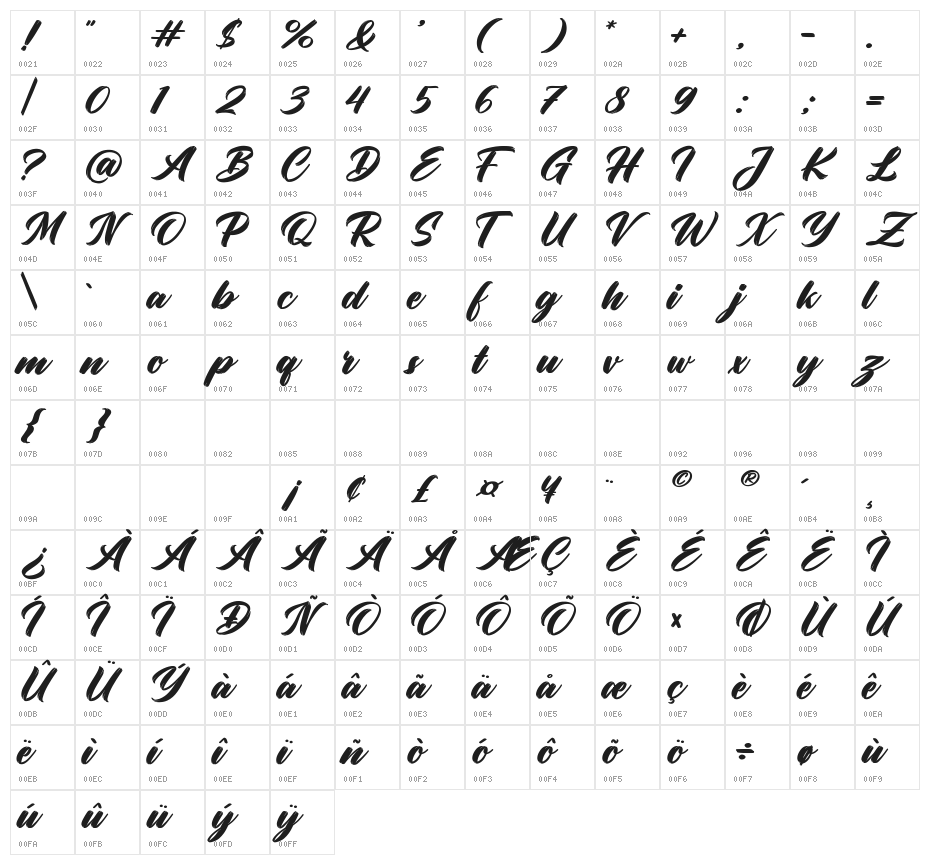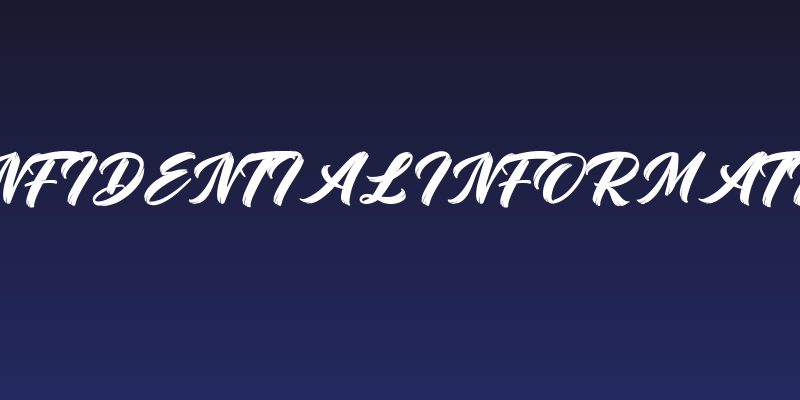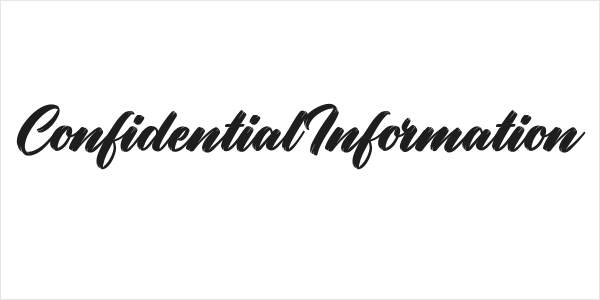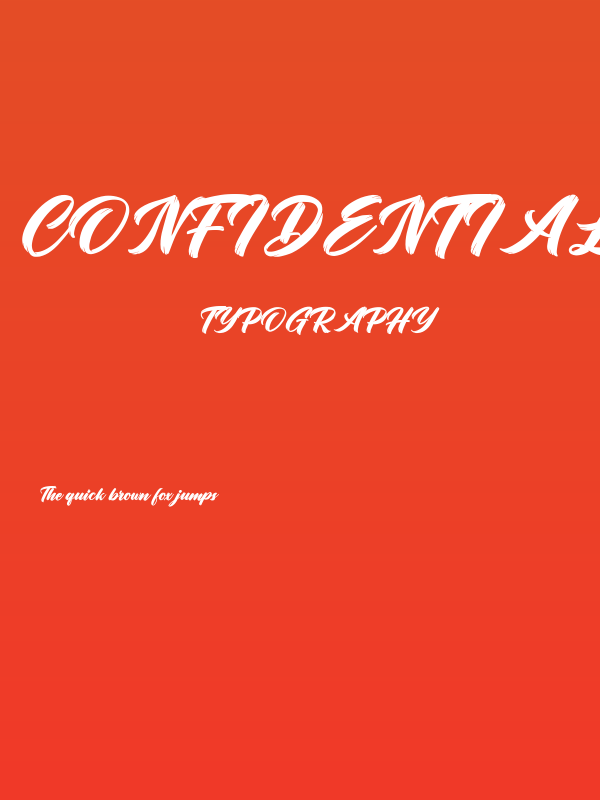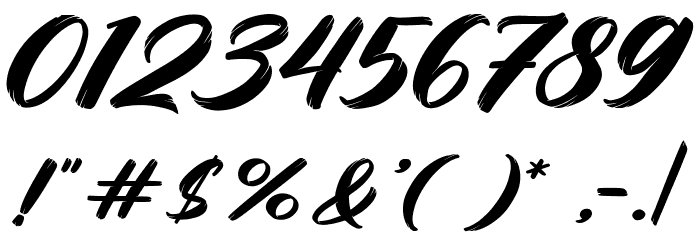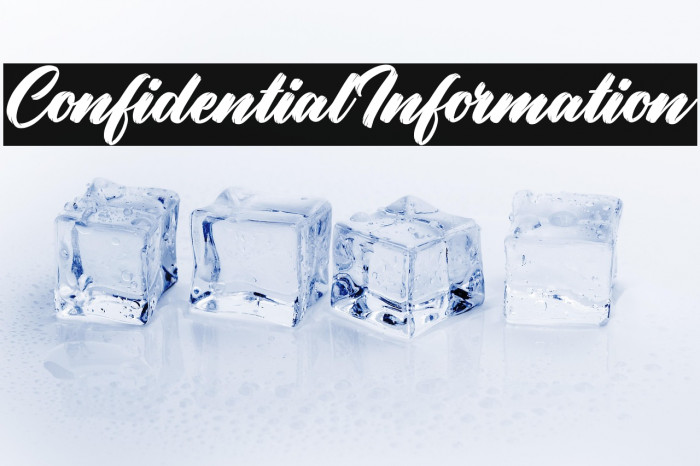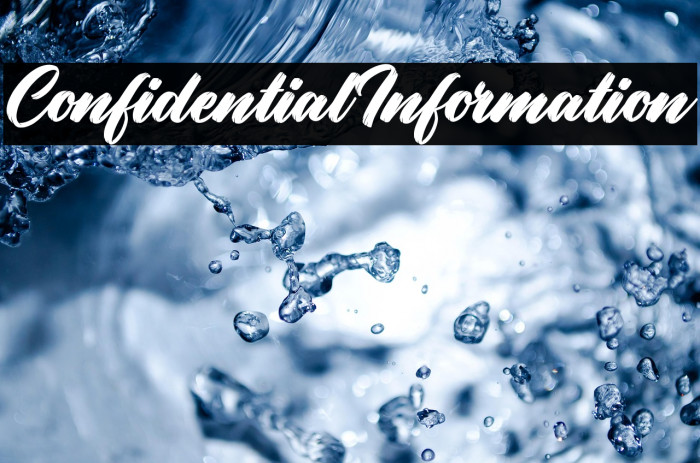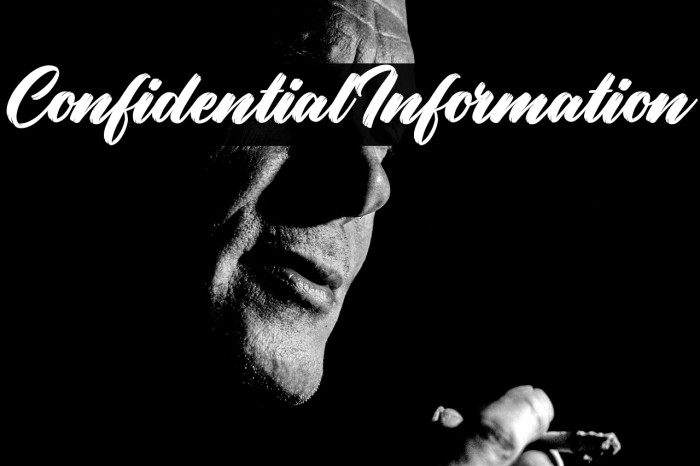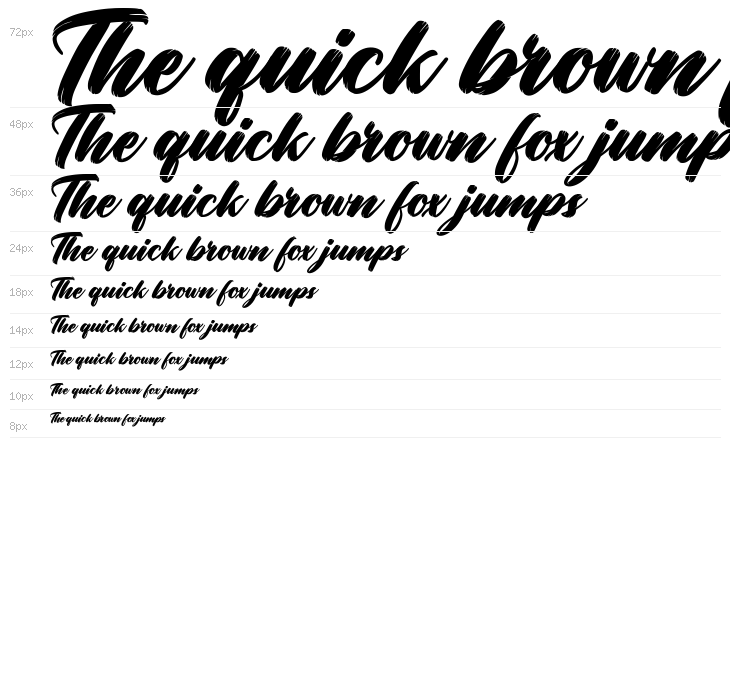
ConfidentialInformation Font
ConfidentialInformation Description
This font features a bold and dynamic script style with a strong presence. The letters are connected, creating a fluid and continuous flow that mimics natural handwriting. The strokes are thick and expressive, with a slight slant that adds to the sense of movement and elegance. The uppercase letters are prominent and commanding, while the lowercase letters maintain a consistent rhythm and balance. The numerals are equally bold, ensuring readability and impact. Special characters are designed to complement the overall aesthetic, making this font versatile for various design needs.